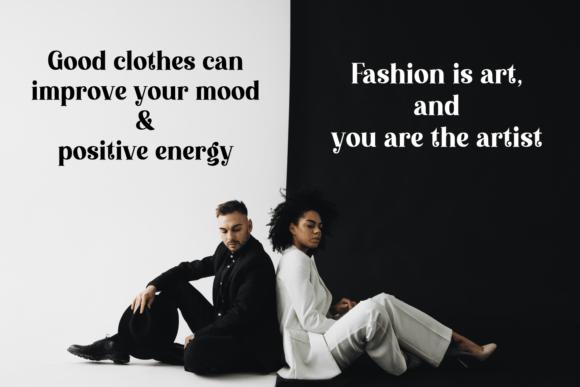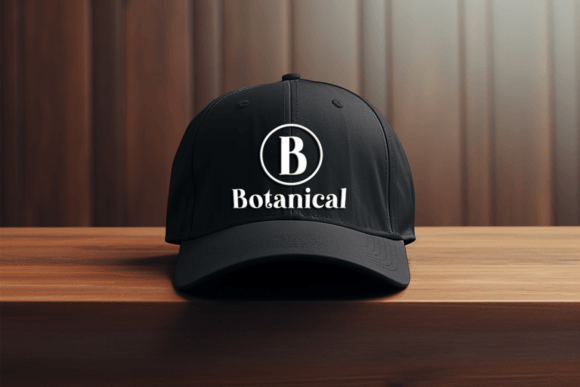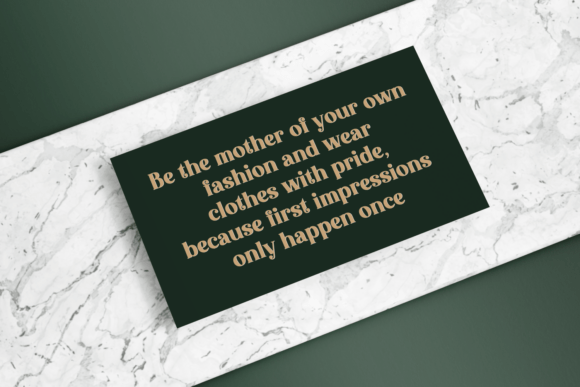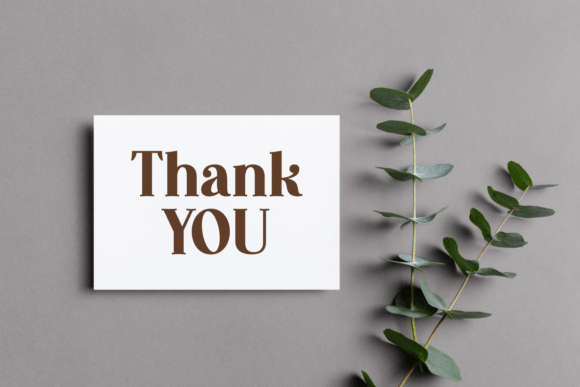
Coylan Font: Elevate Your Designs with Elegance and Sophistication
In the world of typography, fonts play a crucial role in conveying the tone and personality of a brand, product, or message. For designers and crafters seeking to add a touch of luxury and refinement to their work, Coylan font is an excellent choice. This elegant serif font is designed to embody sophistication and timeless beauty, making it perfect for high-end branding, editorial layouts, and formal invitations.
The Characteristics of Coylan Font
Coylan font boasts delicate curves and sharp serifs, which come together to create a refined, modern aesthetic. The font’s elegant design makes it an excellent choice for projects that require a touch of sophistication and poise. Whether you’re working on a luxury brand’s visual identity, a high-end editorial layout, or a formal invitation, Coylan font is sure to impress.
One of the standout features of Coylan font is its versatility. The font is designed to be adaptable, making it suitable for a wide range of applications, from digital media to print materials. Its legibility and clarity ensure that it can be used in various contexts, from body text to headlines, without compromising on style or readability.
Applications of Coylan Font
Coylan font is an excellent choice for various design projects, including:
- Luxury Branding: Create a lasting impression with Coylan font, which exudes sophistication and elegance. Use it to develop a visual identity that reflects your brand’s high-end values and personality.
- Editorial Layouts: Add a touch of refinement to your editorial layouts with Coylan font. Its elegant design makes it perfect for high-end publications, magazines, and newspapers.
- Formal Invitations: Make a statement with Coylan font, which is ideal for formal invitations, such as wedding invitations, gala invitations, and other high-end events.
- Packaging Design: Elevate your packaging design with Coylan font, which can add a touch of luxury and sophistication to your product’s branding.
Why Choose Coylan Font?
With so many fonts available, why choose Coylan font? Here are a few compelling reasons:
- Timeless Beauty: Coylan font’s elegant design ensures that it will remain relevant for years to come, making it a valuable addition to your font library.
- Versatility: Coylan font is adaptable and can be used in various contexts, from digital media to print materials.
- Elegance: Coylan font exudes sophistication and refinement, making it perfect for high-end branding, editorial layouts, and formal invitations.
- Legibility: Coylan font is designed to be clear and legible, ensuring that your message is conveyed effectively.
Tips for Using Coylan Font
To get the most out of Coylan font, here are a few tips to keep in mind:
- Pair it with neutral colors: Coylan font pairs well with neutral colors, such as black, white, and gray, which allow its elegance to shine.
- Experiment with font sizes: Coylan font is legible in various font sizes, making it suitable for both body text and headlines.
- Use it sparingly: Coylan font is a statement font, so use it sparingly to avoid overwhelming your design.
In conclusion, Coylan font is an excellent choice for designers and crafters seeking to add a touch of luxury and sophistication to their work. Its elegant design, versatility, and legibility make it perfect for high-end branding, editorial layouts, and formal invitations. With Coylan font, you can elevate your designs and create a lasting impression on your audience.